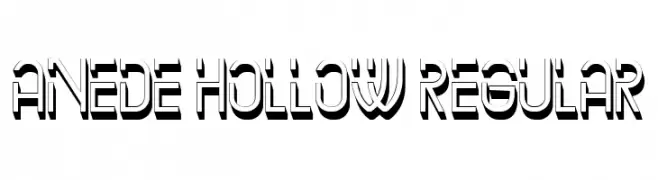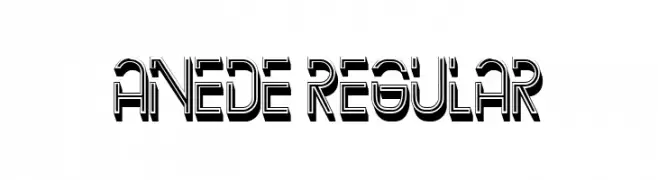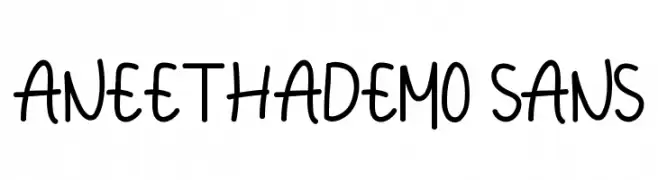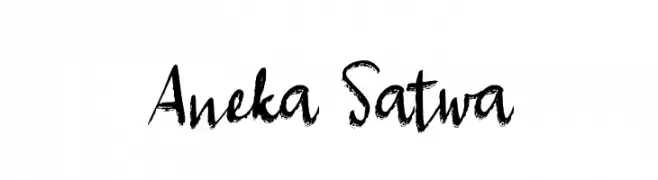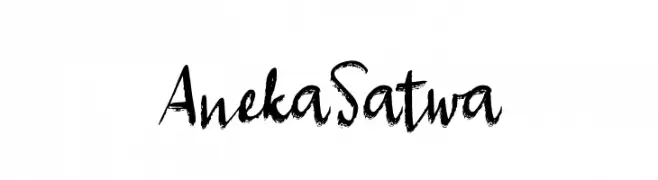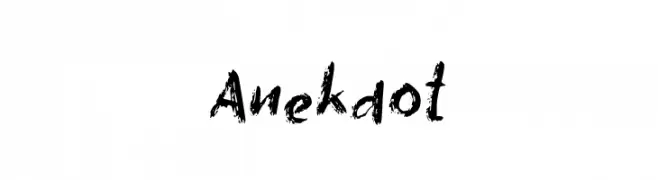
• Anede Filled Regular
A bold, geometric font with a futuristic, outlined design.
• Anede Hollow Regular
A bold, hollow, 3D font with a modern and futuristic style.
• Anede Regular
A bold, geometric font with a three-dimensional, futuristic design.
• Aneetha Demo
An elegant, flowing script font with a whimsical, hand-drawn style.
• Aneethademo Sans
A playful, casual handwritten font with smooth, rounded letterforms.
• ANEHIK-Regular
A bold, dripping font with a horror-themed aesthetic.
• AneishaScriptBold
A lively and expressive cursive script font with bold, flowing strokes.
• Aneka Satwa
A dynamic, brush-style font with expressive, hand-painted strokes.
• Aneka Satwa
A bold, expressive brush script with a textured, hand-painted style.
• Anekdot
A bold, brush-textured font with an energetic and expressive style.